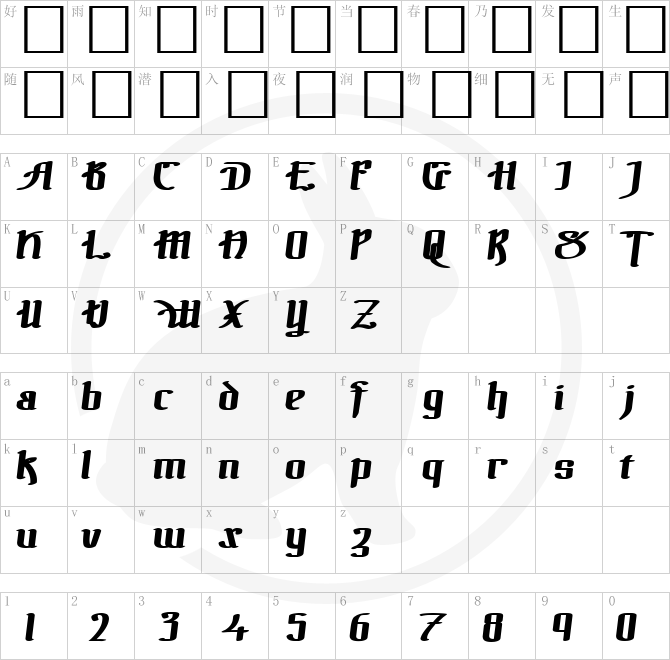
- Font Name:!The Black Bloc
!The-Black-Bloc-Bold-Italic.ttf is a very beautiful artistic font, !The-Black-Bloc-Bold-Italic.ttf is widely used in the design and printing of various books and pictures,!The-Black-Bloc-Bold-Italic.ttf has a strong visual impact,!The-Black-Bloc-Bold-Italic.ttf is a commonly used font in newspapers, magazines and books, and is used in posters, e-commerce Poster design, store design, logo design, font design and other fields.!The-Black-Bloc-Bold-Italic.